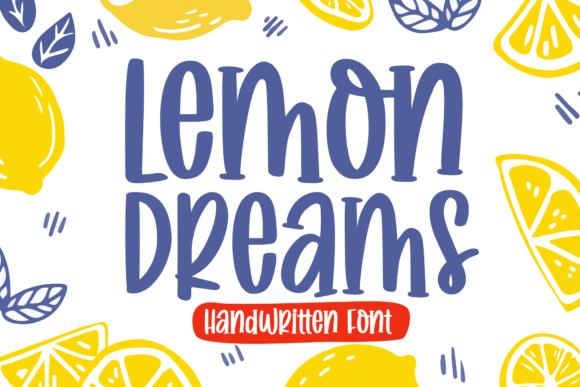
\n\nLooking for the best fonts for your Cricut cutting machine? Look no further than Lemon Dreams Font, created by the talented team at Holydie Studio! This charming script font is perfect for adding a personal touch to any project, whether it's a handmade card, custom t-shirt, or unique home decor item.\n\nWhat sets Lemon Dreams apart from other script fonts on the market is its adorable handwritten style. With its bouncy letters and playful curves, this font is sure to add a touch of whimsy to your designs. Plus, it's incredibly versatile - use it for everything from logos and branding to social media graphics and more.\n\nBut don't let its cuteness fool you - Lemon Dreams is also a highly professional font that can elevate the look of any project. Its clean lines and legibility make it easy to read, while its unique style adds a touch of personality and charm.\n\nSo why wait? Download Lemon Dreams today and take your designs to the next level! With its unique blend of charm and professionalism, this font is sure to become a go-to in your design arsenal.\n\n